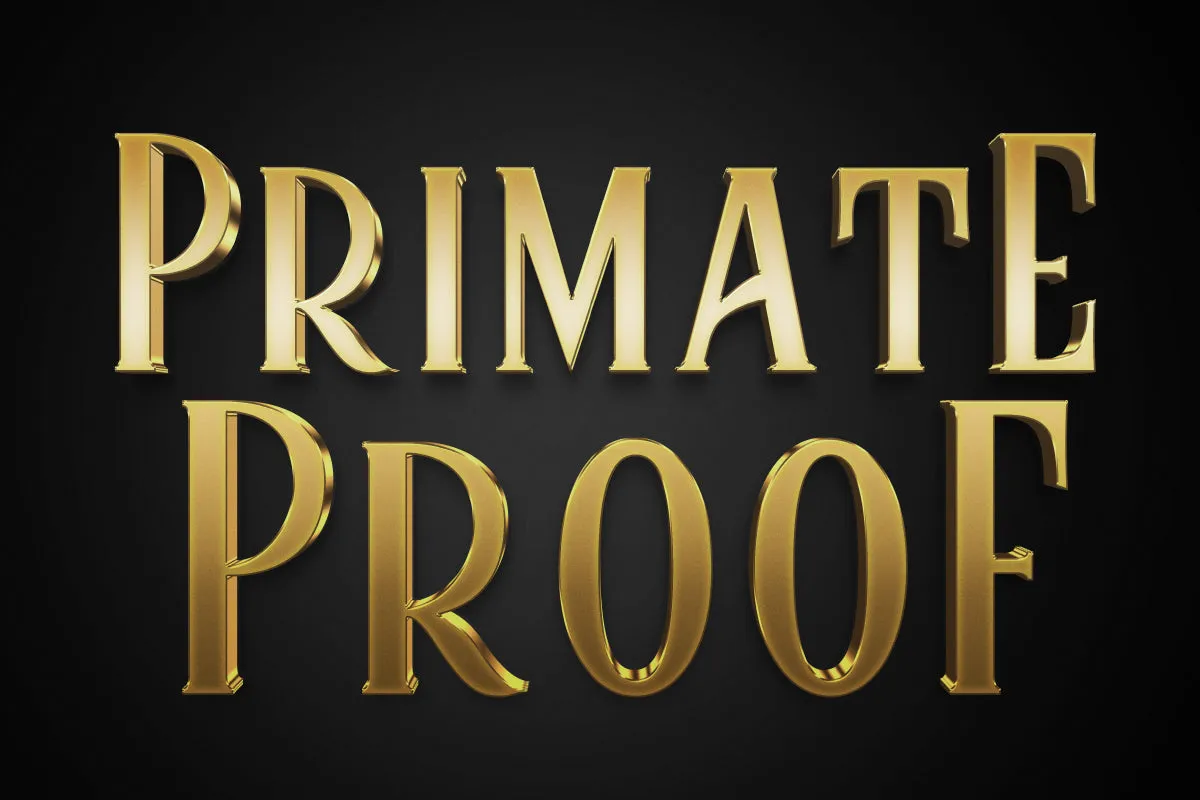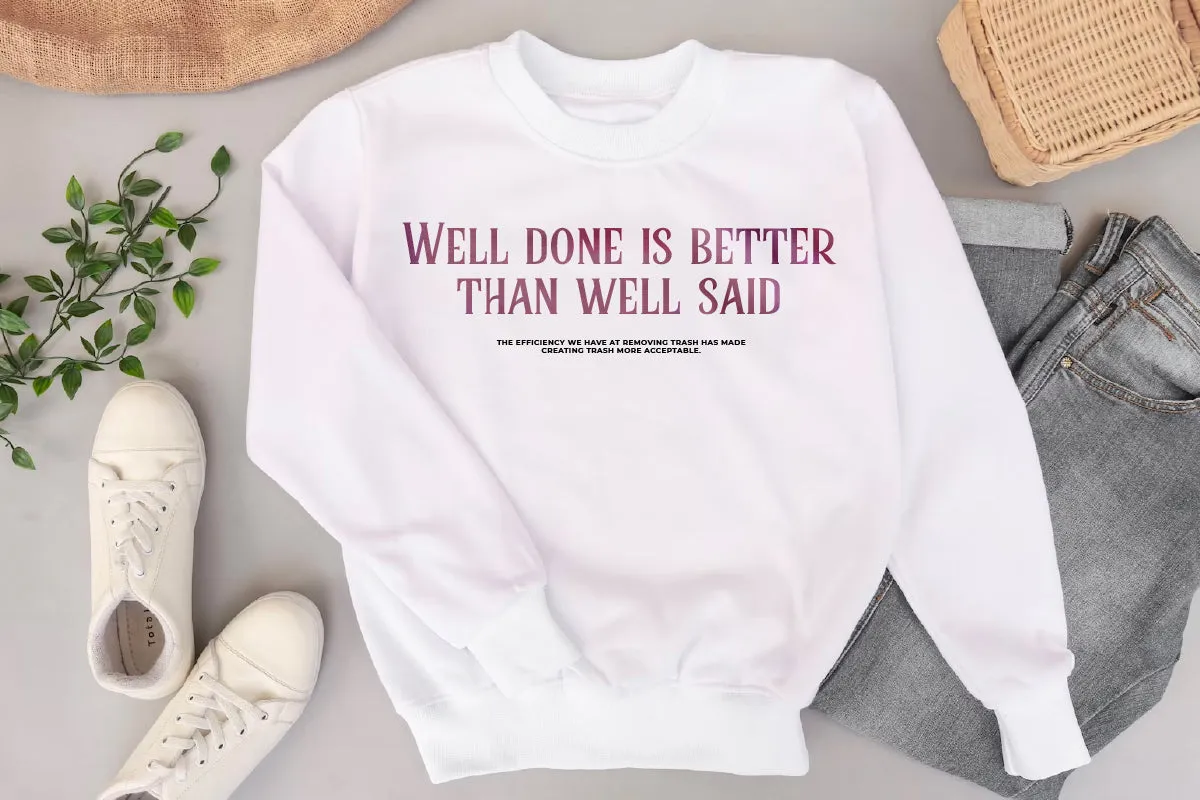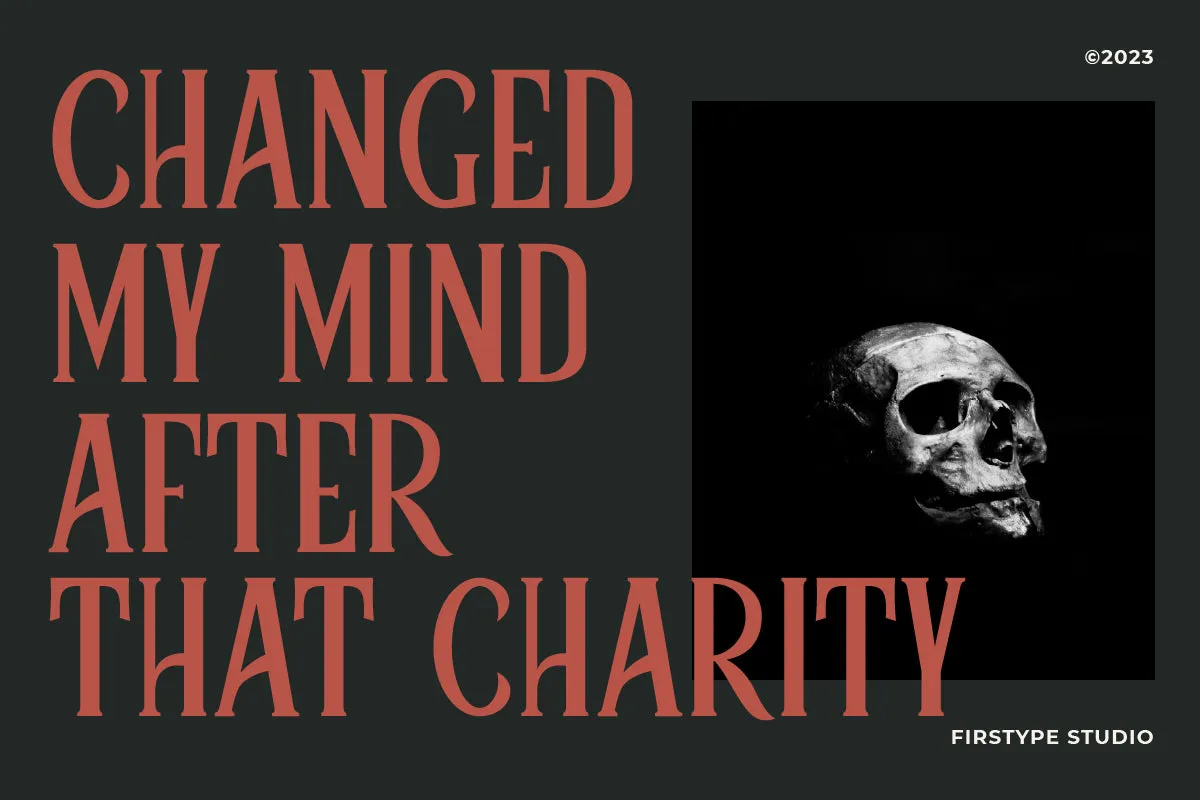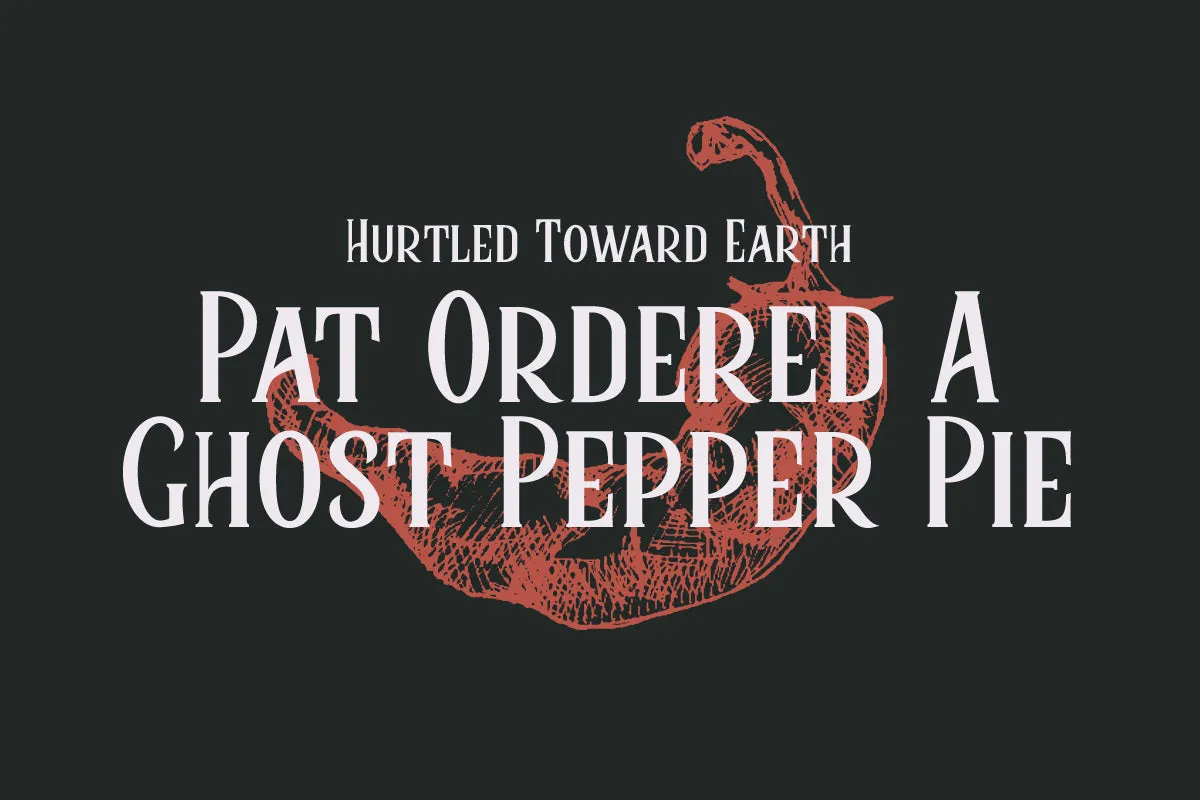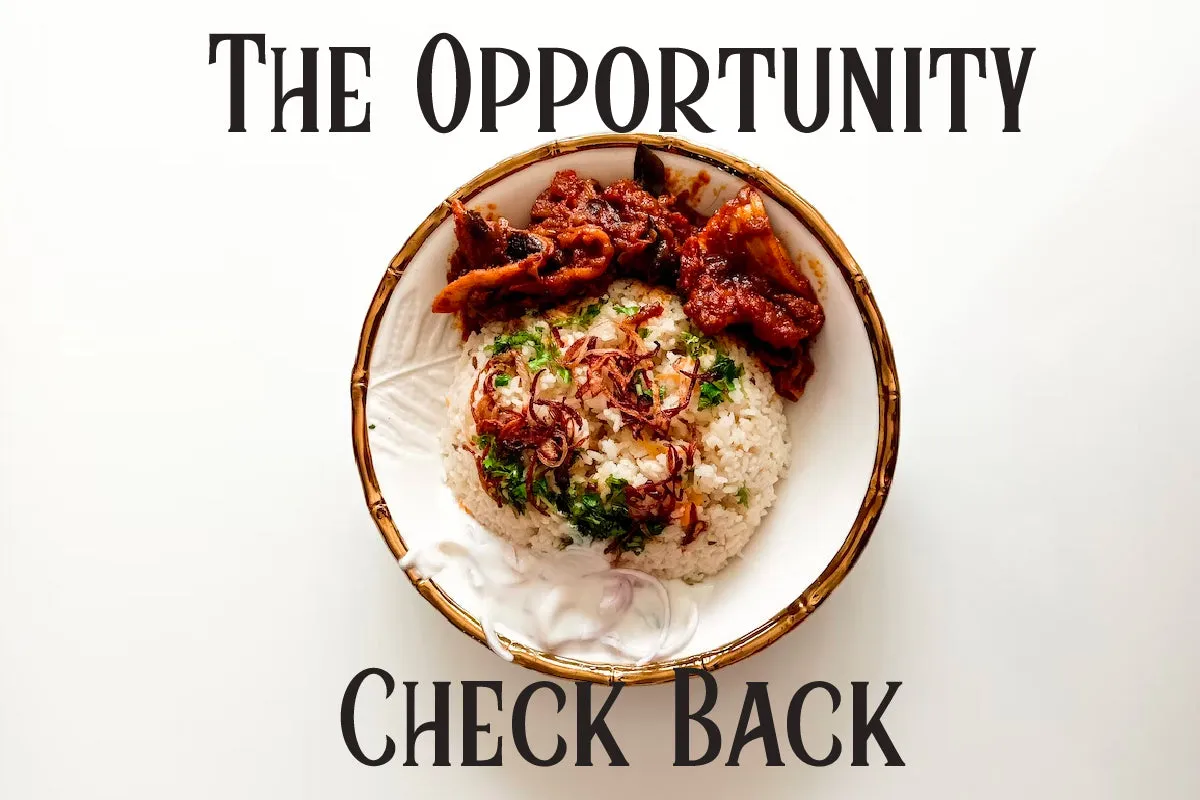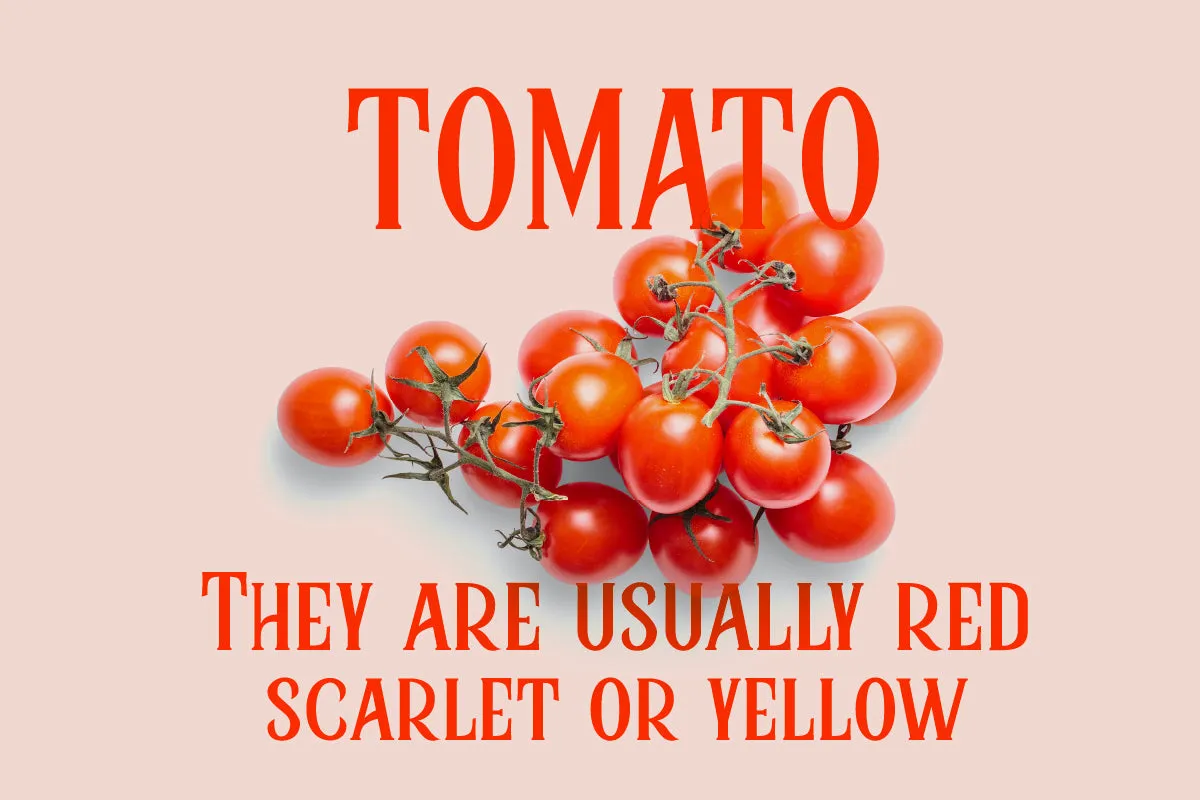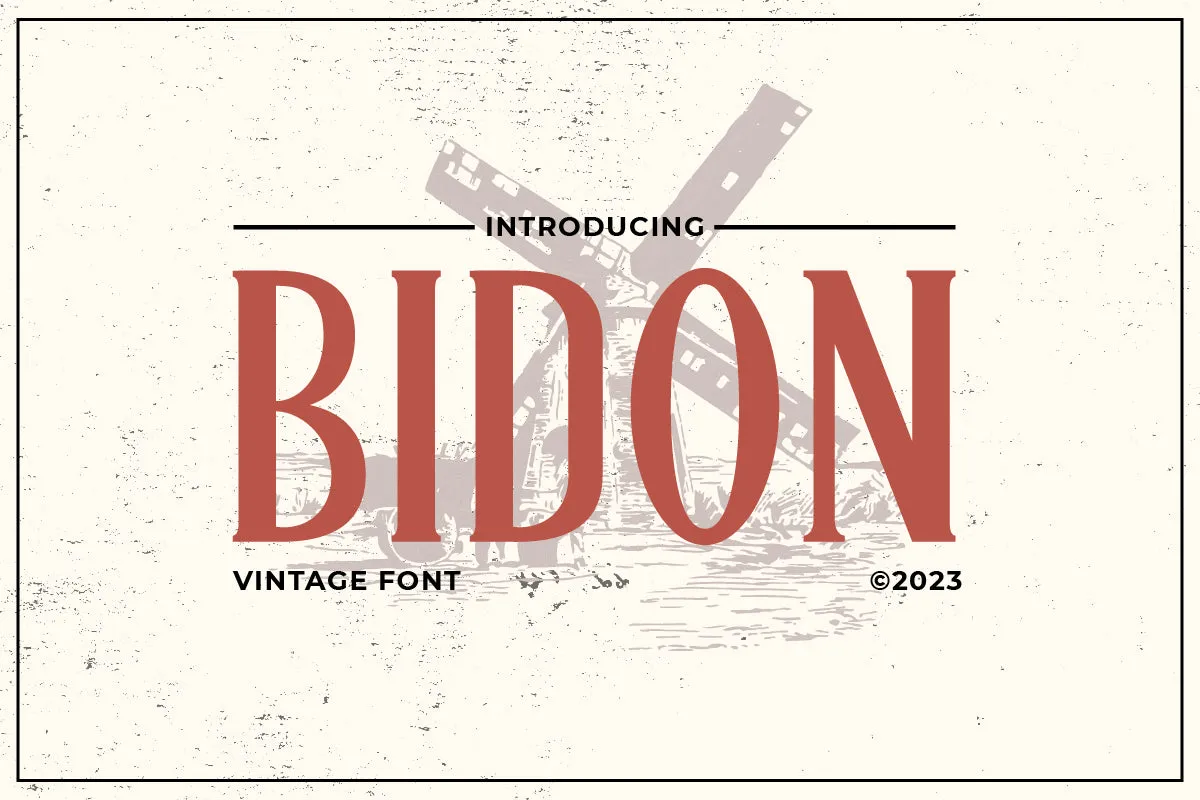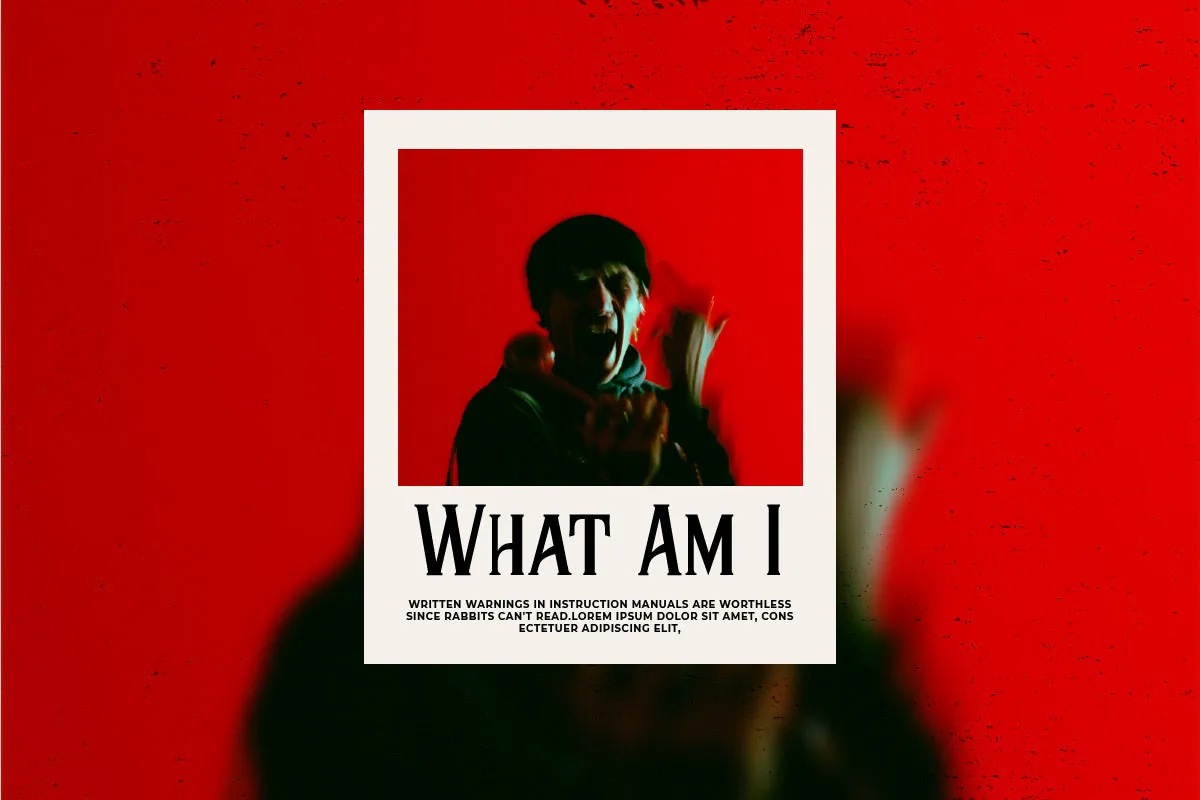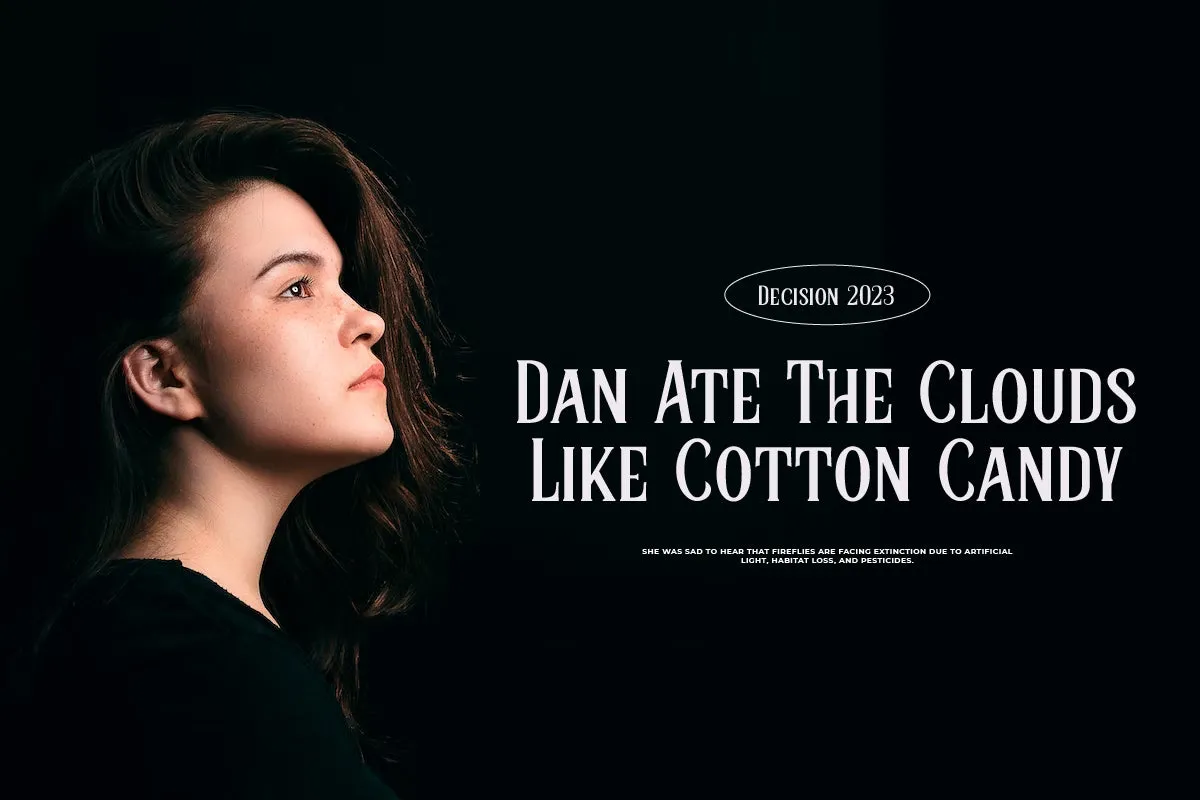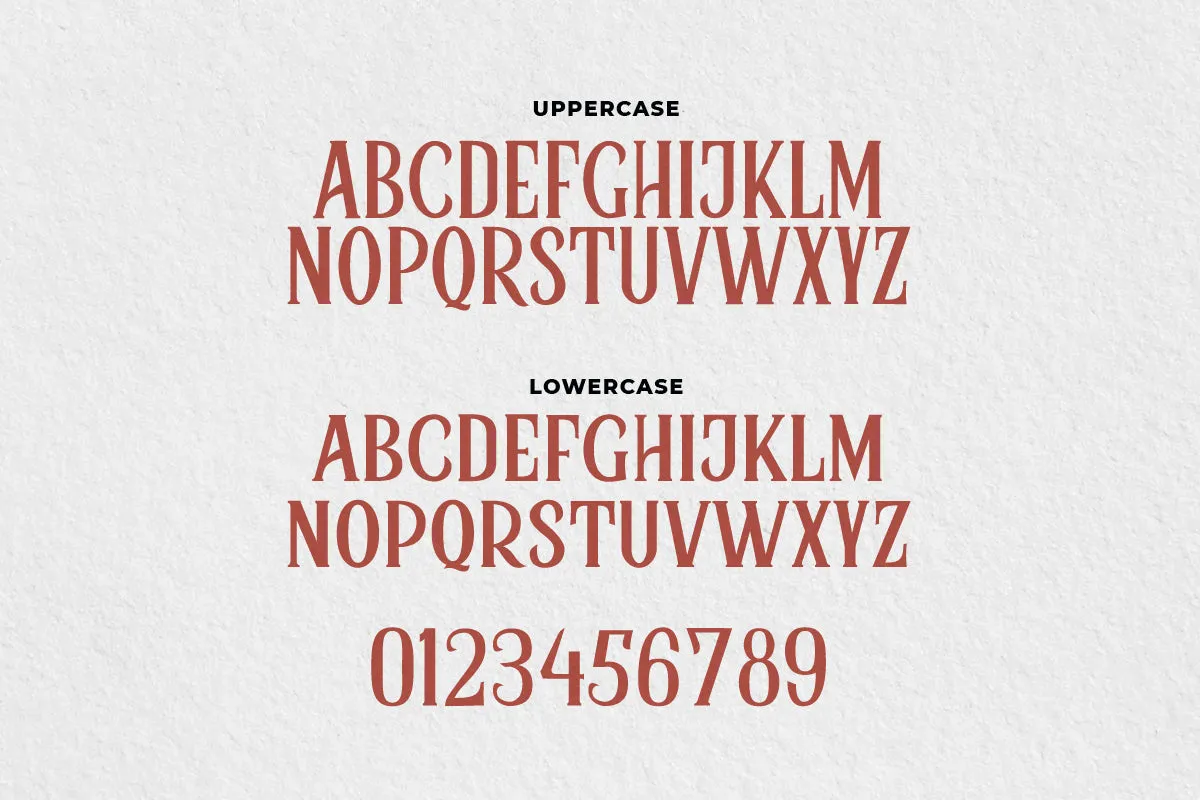
Bidon - Serif Vintage Font
Introducing Bidon by FIrstype Studio, a rugged serif cowboy font that brings the spirit of the Wild West to your designs. Bidon is the perfect choice for capturing that cowboy charm on billboards and posters. With its distinct character, this font adds a touch of the Old West to your projects. Bidon is available in multiple licensing options to meet your diverse design needs. Wild West Appeal: Bidon embodies the essence of the Wild West, making it an ideal font for creating an authentic cowboy atmosphere. Its bold and rustic design transports your audience to a time when the frontier was still uncharted. Perfect for Cowboy Billboards: Bidon is tailor-made for cowboy-themed billboards. Whether you're promoting a rodeo, western show, or cowboy event, this font gives your message the rugged and adventurous look it deserves. Great for Circus Events: Not limited to just cowboy themes, Bidon's versatile character makes it suitable for circus-themed designs as well. Its bold serifs and distinctive letterforms bring a touch of vintage circus charm to your promotional materials. Multiple Licensing Options: We understand that different projects have different licensing requirements. Bidon is available in various licensing options, including personal, commercial, and extended licenses. Choose the one that suits your specific project. Saddle Up Your Typography: With Bidon, you're not just choosing a font; you're saddling up your typography for an unforgettable journey through the Wild West or under the big top. Choose Your License: Explore our licensing options and select the one that aligns with your project's needs. Whether you're a designer, event organizer, or creative enthusiast, Bidon has a license that fits your requirements. Embrace the Wild West with Bidon – Where Cowboy Adventure Awaits. This description highlights the Wild West appeal of the "Bidon" serif cowboy font, its suitability for cowboy billboards and circus-themed designs, and the availability of multiple licensing options to cater to different users.